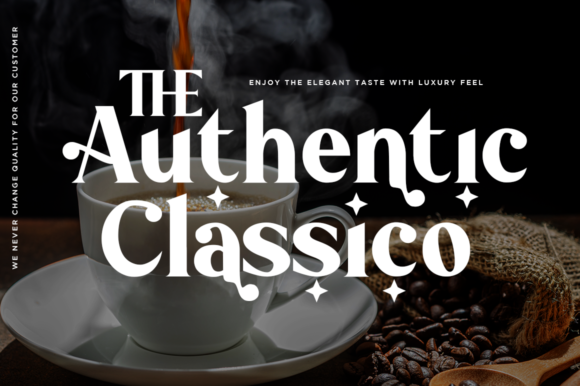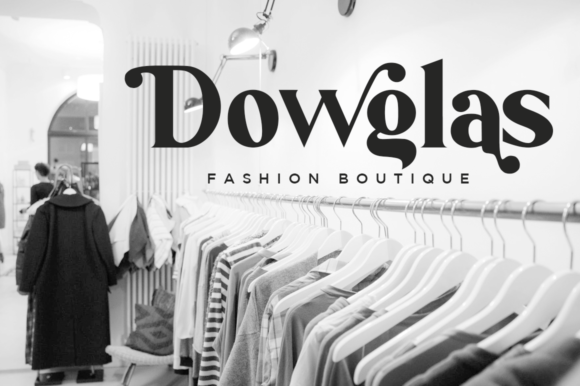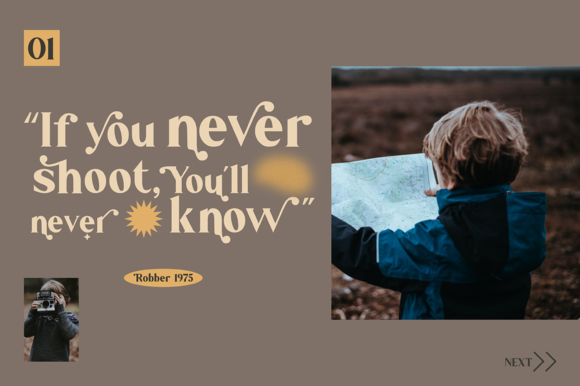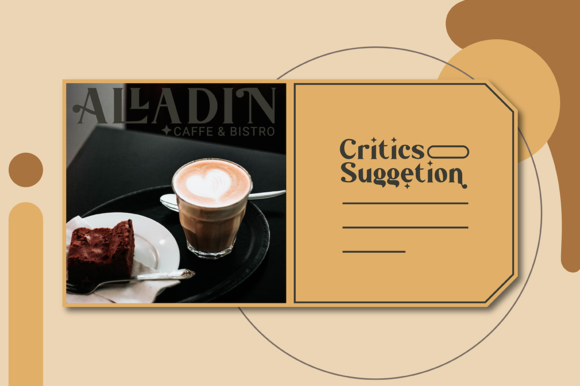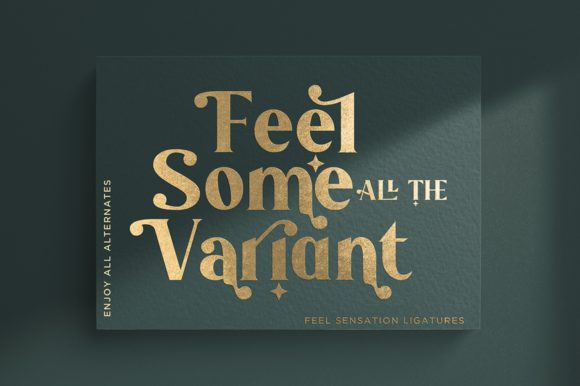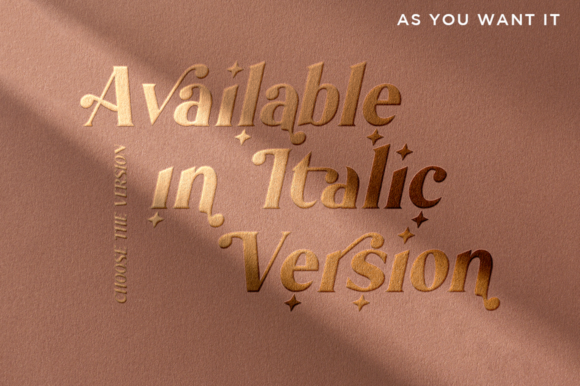
Introduction to Megatura Font
Have you ever stared at a blank page, struggling to find the perfect font to bring your creative project to life? It’s that moment when the design wheels start turning, and you know you need something special to make it pop. That’s exactly what happened to many designers when they discovered the Megatura Font.
As a versatile and elegant serif font, Megatura Font is more than just a design resource – it’s a game-changer. With its wide range of stylistic alternates, you can create high-quality designs that perfectly fit your needs, from logos and posters to packaging and T-shirts. Whether you’re working on a free download project or need a font with a transparent background, Megatura Font has got you covered.
For designers, having access to a high-quality font like Megatura Font can be a valuable asset. It allows you to take your creative projects to the next level, experimenting with different styles and designs without compromising on quality. In this article, we’ll dive deeper into the world of Megatura Font and explore its many benefits and uses.
Megatura Font Key Features
- High-quality design resource for creative projects, ideal for use in graphic design, digital art, and publishing.
- Includes a range of unique characters and glyphs, making it a versatile choice for designers working on creative projects.
- Perfect for designers, artists, and publishers looking for a high-quality, free design resource for their creative projects.
Honest Review: Megatura Font
As a designer, I’m always on the lookout for high-quality design resources that can elevate my creative projects. I recently had the chance to try out the Megatura Font, and I’m excited to share my honest review with you.
- High-quality design: The Megatura Font is incredibly detailed and features a unique, hand-drawn style that’s perfect for creative projects.
- Limited font styles: While the font is well-designed, it’s limited to a single style, which may not be ideal for projects that require multiple font variations.
Overall, I’m impressed with the Megatura Font, but I do wish it had more font styles and webfont support. Despite its limitations, it’s still a great design resource for designers working on creative projects.
Megatura Font
Tips for Getting the Most Out of Megatura Font
To get the most out of the Megatura Font, use it on a transparent background to create a unique and eye-catching design. Experiment with different font sizes and styles to add depth and visual interest to your project.
The Megatura Font is ideal for use in creative projects, including:
- Posters